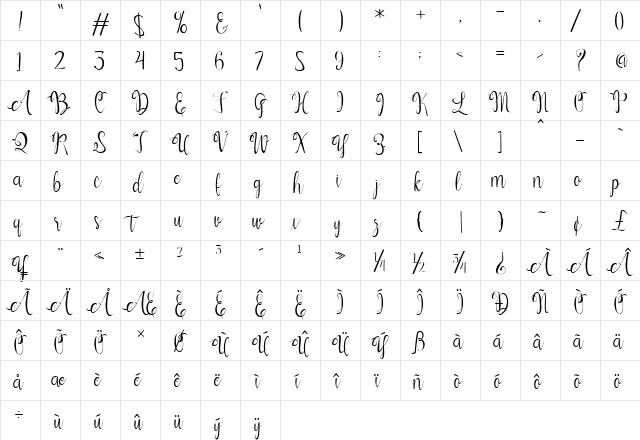
Kerling Script Regular
Design Context for Kerling Script Typeface
Kerling Script flows with the natural rhythm of handwritten lettering, making it ideal for designs that call for warmth and personal expression.
Font Pairing: Combine Kerling Script with a simple geometric sans for maximum contrast — the tension between flowing curves and clean structure is a classic typographic pairing.
Pro Tip: Use Kerling Script for short runs of text — names, titles, or taglines. Extended body copy in script faces tires the eye quickly.